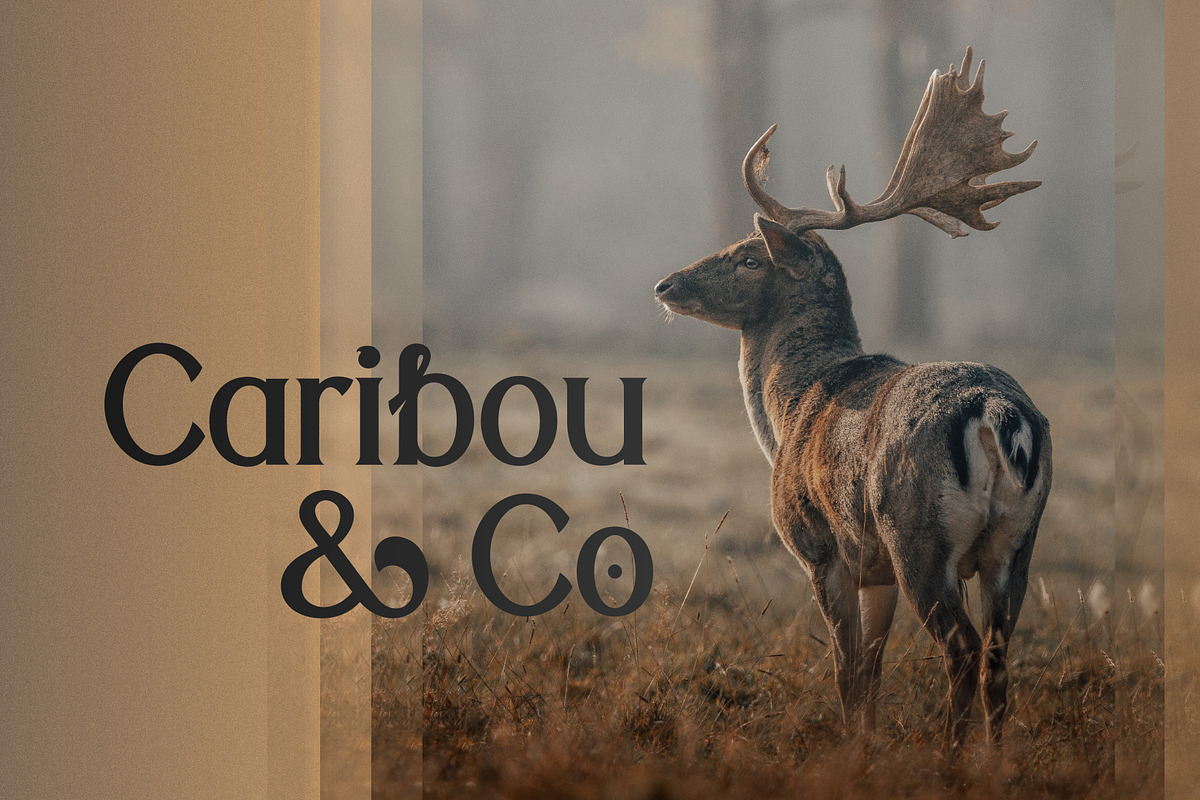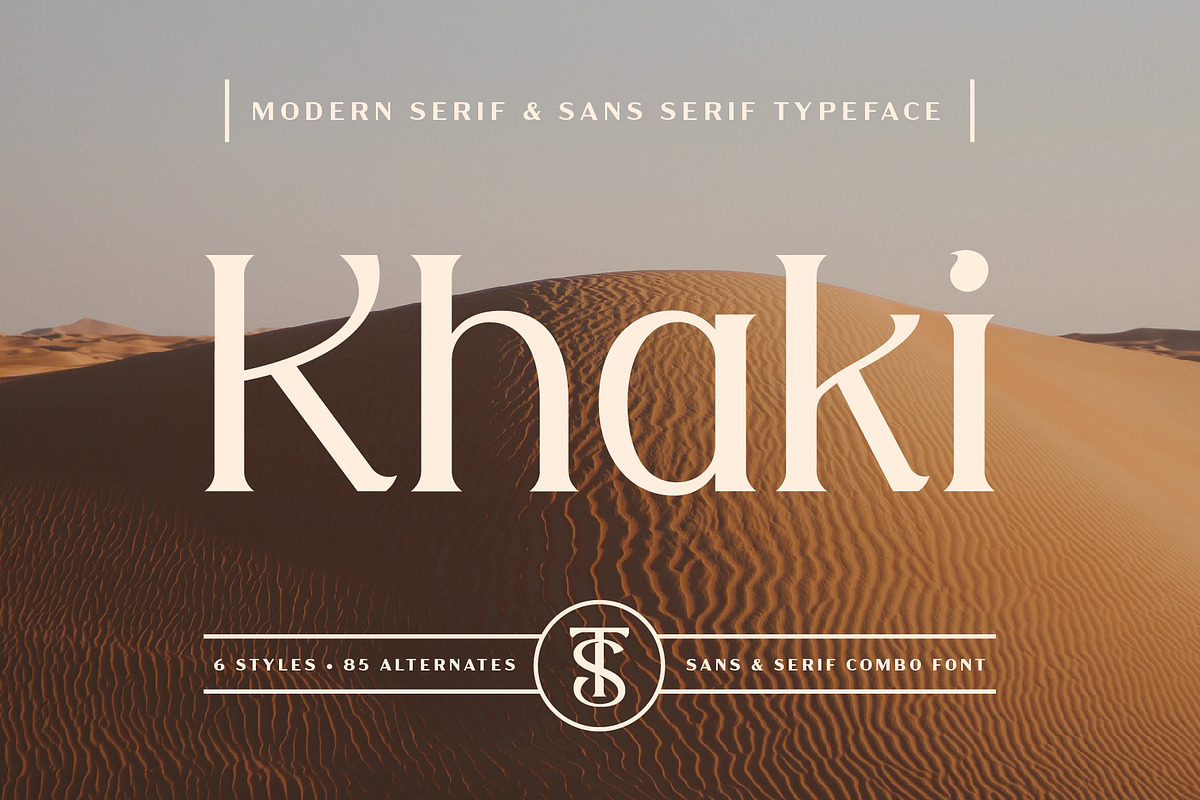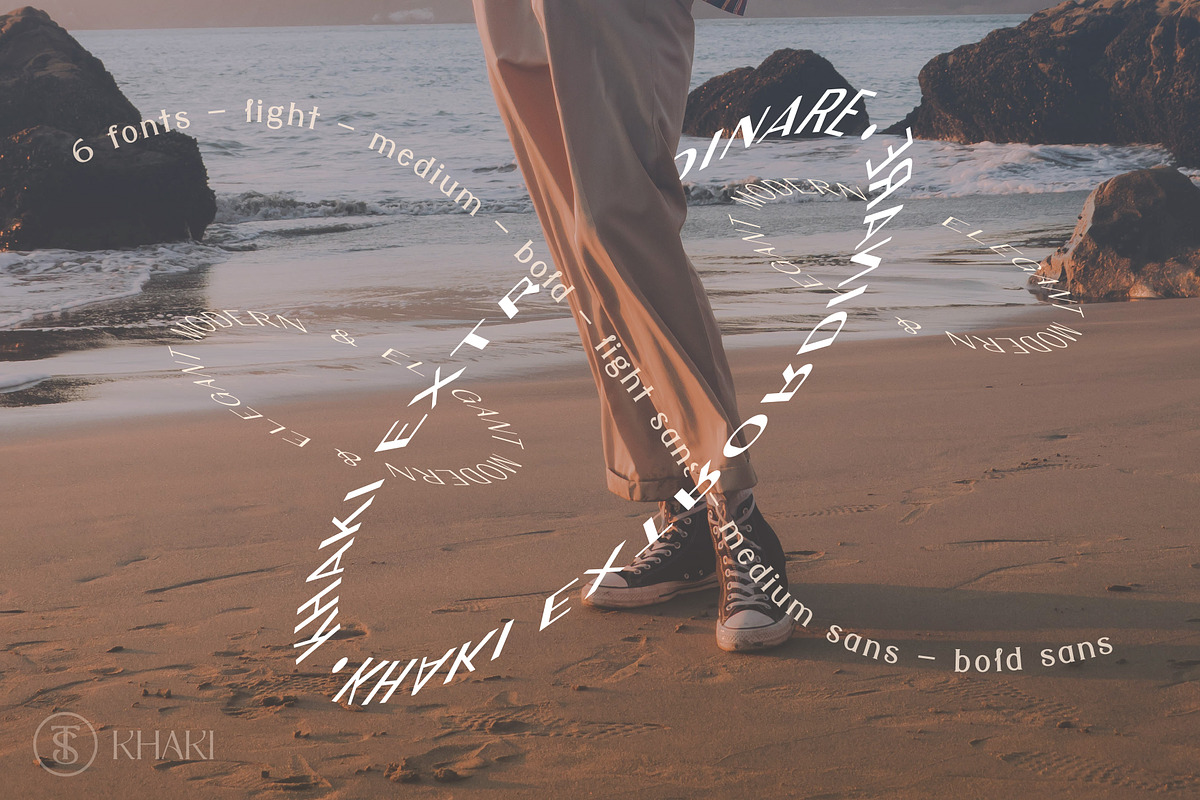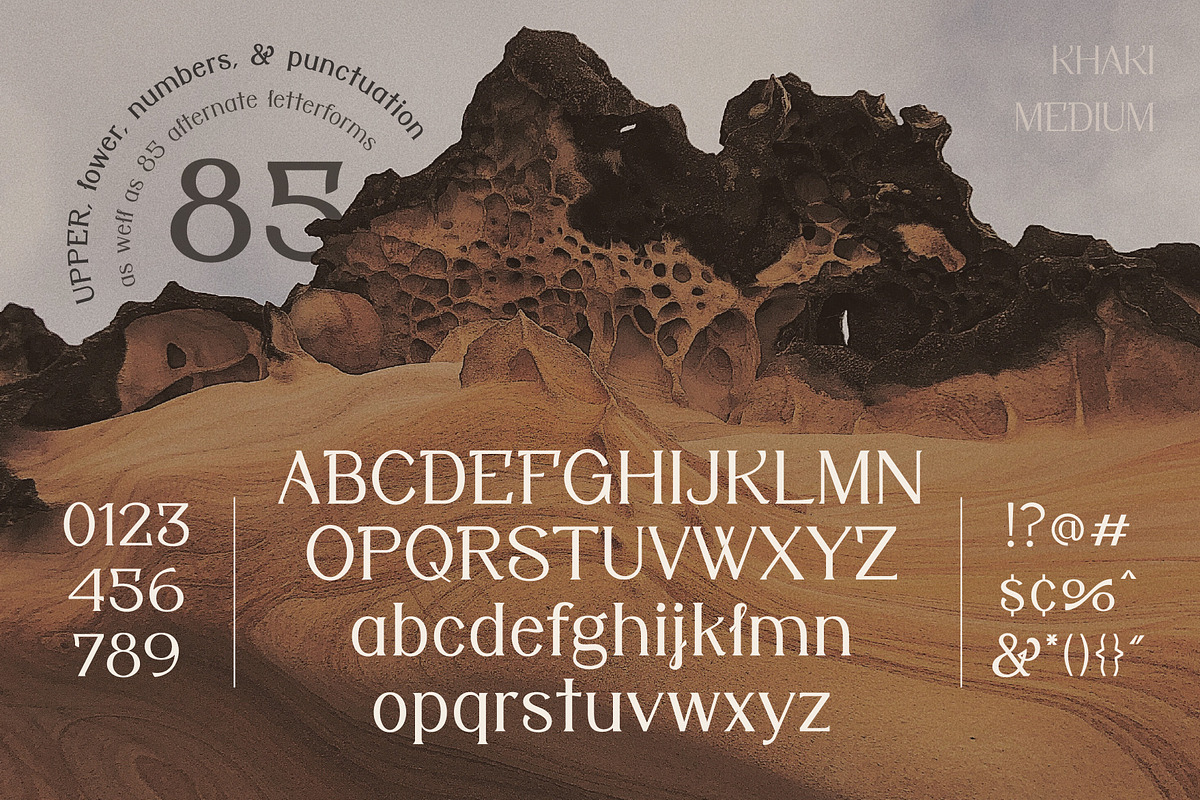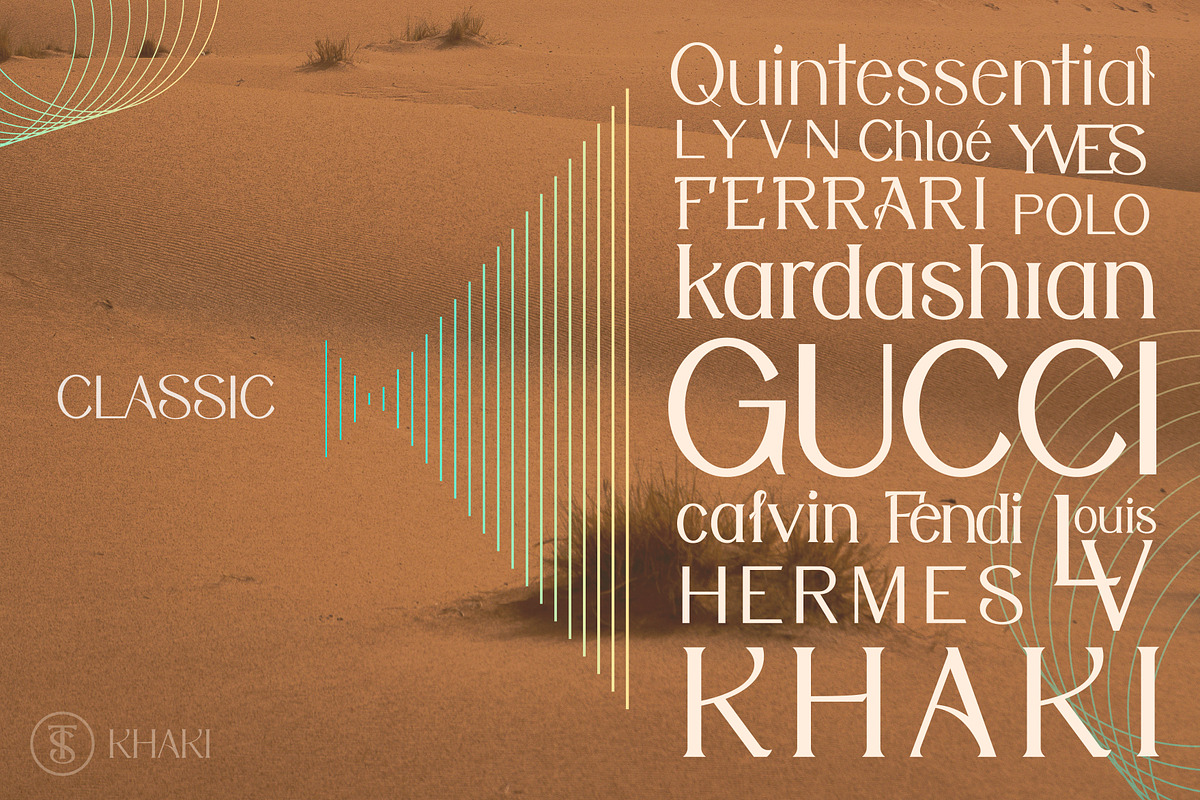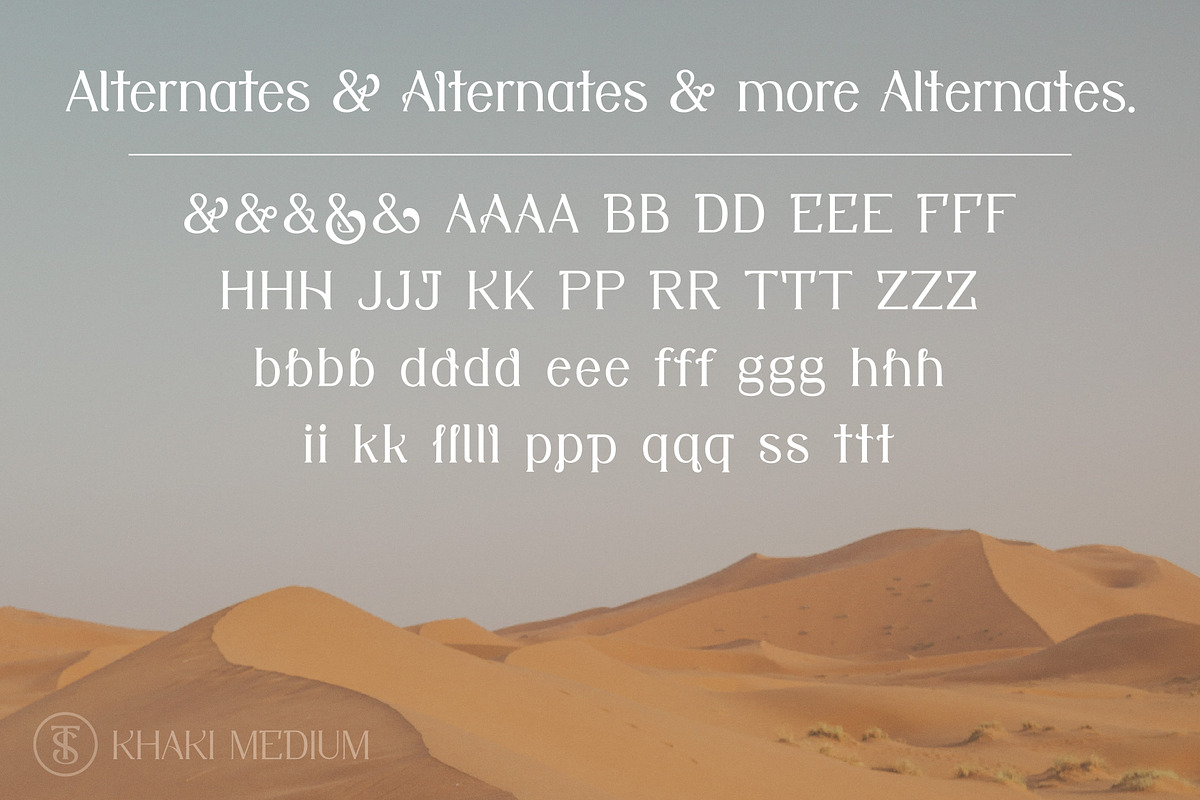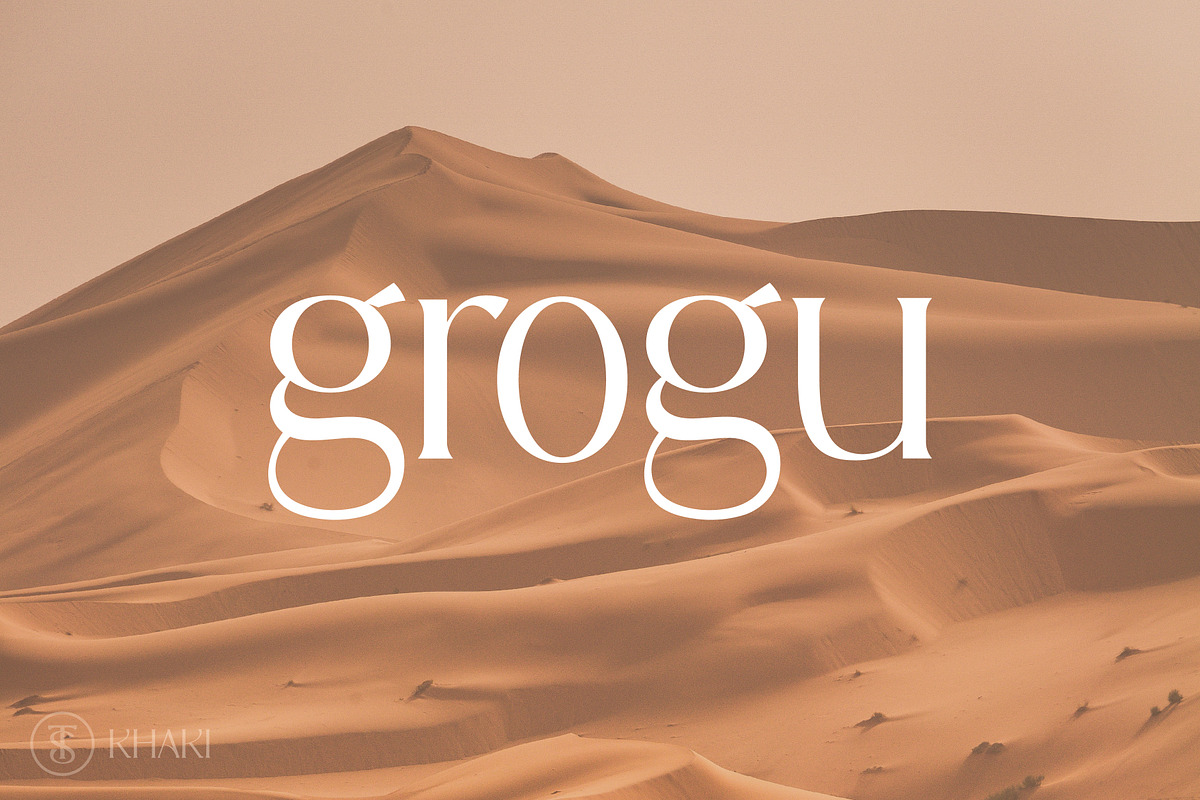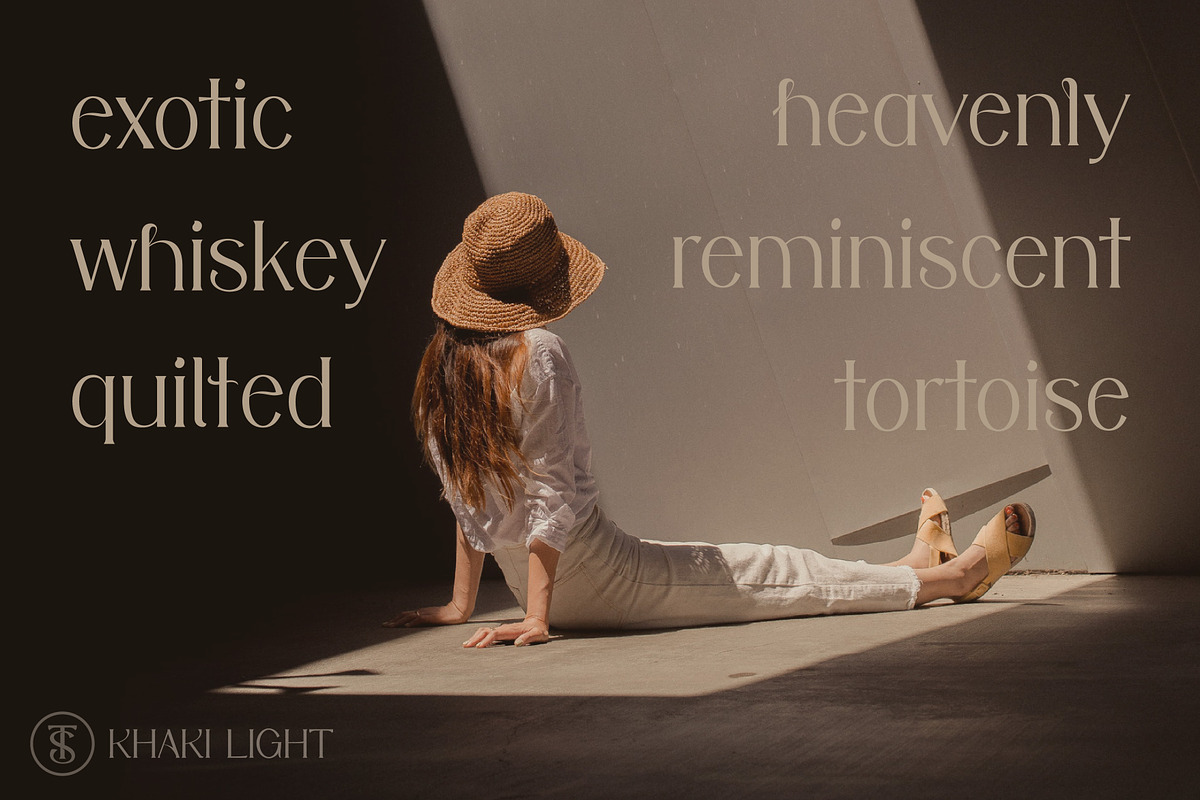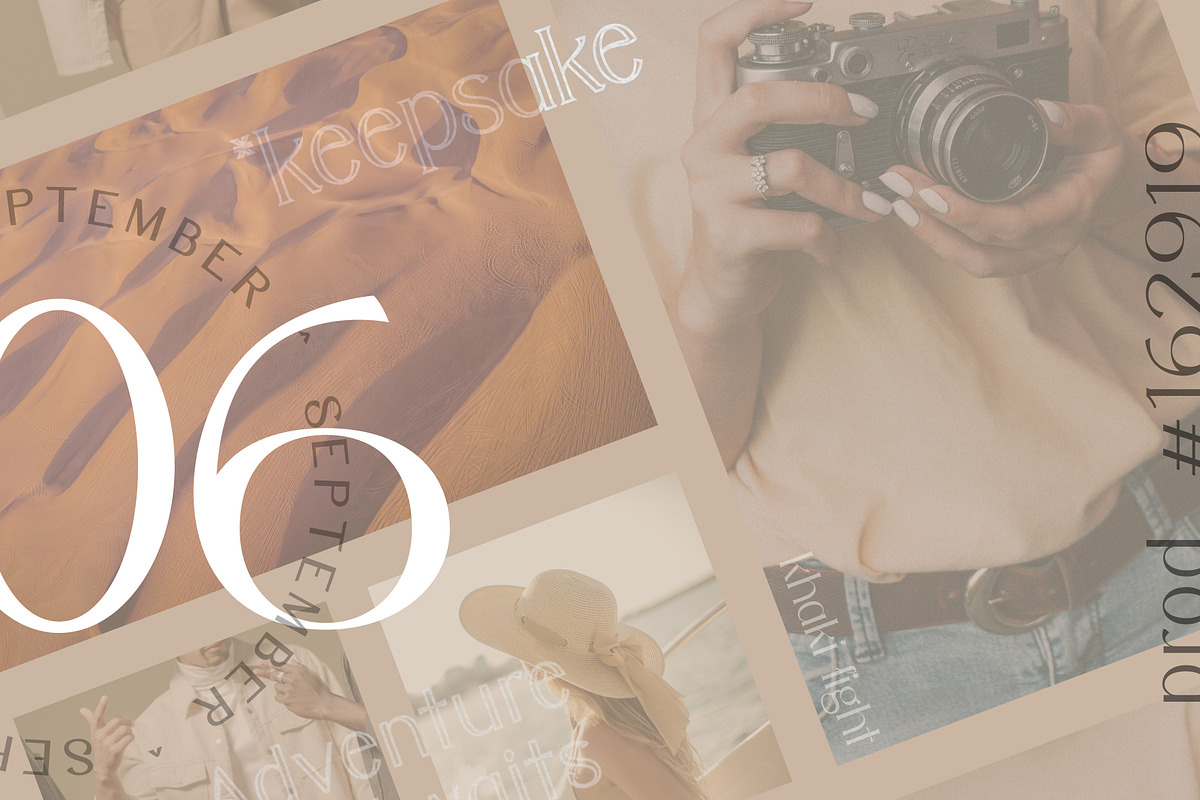
Khaki – Modern Serif & Sans Combo
Khaki is a modern Serif and Sans Serif font combo. With elegant and legible letterforms, Khaki is your next go-to for fashionable, luxurious typography.
Khaki includes 6 styles:
- Light
- Light Sans
- Medium
- Medium Sans
- Bold
- Bold Sans
Additionally, Khaki is extremely versatile with over 85 alternate letterforms for each font weight as well as capitals, lowercase, numerals, and basic punctuation. When designing with Khaki, there are many options for your typography style of choice. Options include extended strokes, notched letters/numbers, stroke design variations, looped strokes, and sans-serif font styles for a more controlled construction.